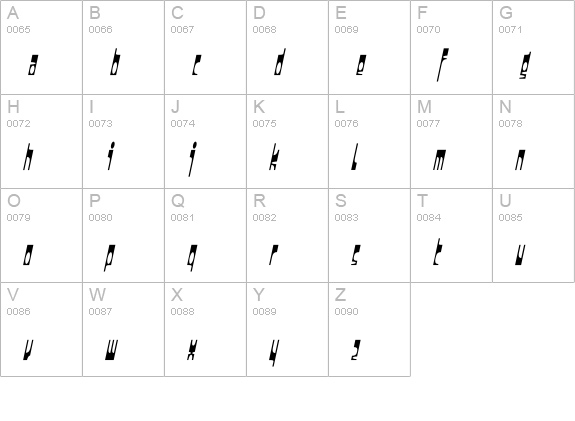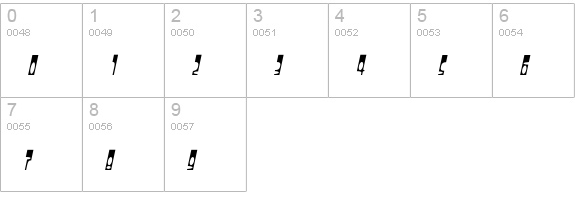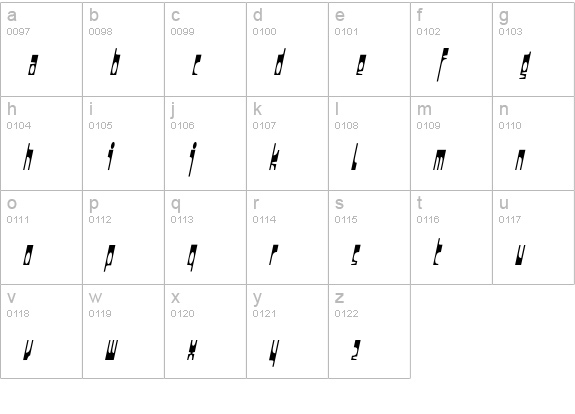
Darkside-Italic is a distinctive, italic variant in the Darkside typeface family \xE2\x80\x94 well suited to design and typography projects.
Introducing Darkside-Italic font, a sleek and sophisticated typeface that exudes elegance and a touch of mystery. Its slanted, italicized design adds a unique flair to any project, making it perfect for adding a touch of sophistication to your designs. The Darkside-Italic font features clean lines and sharp edges, creating a modern and stylish look that is sure to catch the eye. Best of all, Darkside-Italic font is available for free download at FontsMarket.com. Whether you're working on a logo, website, or print design, this versatile font is sure to elevate your projects to the next level. Don't miss out on the opportunity to add Darkside-Italic font to your font collection today!